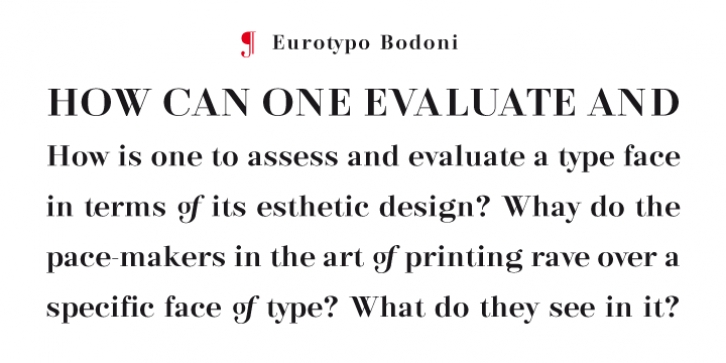
Designed by Olcar Alcaide, Eurotypo Bodoni is a serif font family. This typeface has three styles and was published by Eurotypo.
Talking about the numerous types that today bear the name of Giambattista Bodoni, is a kind of tribute as much to his reputation as a printer as to his ability as designer and engraver. In fact, all of them are tenting to be more in the way of Bodoni’s style than simply copy of his letterforms.
Like many other type designers, we’ve been seduced to develop our own point of view of his work, nowadays enriched by some features of OpenType format that allows a variety of combinations: standard ligatures, discretional ligatures, stylistic alternates and old styles figures.